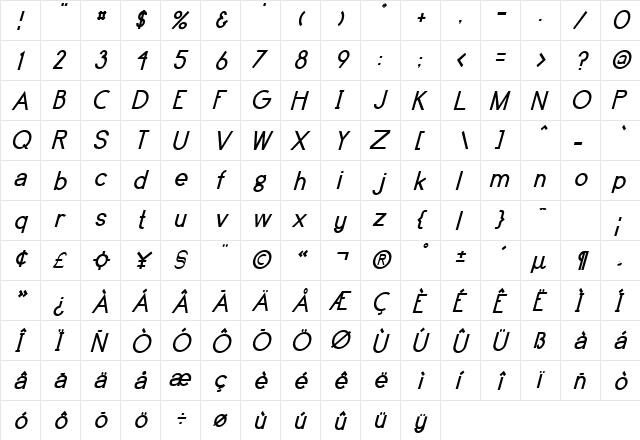
Brassfield Italic
Design Context for Brassfield Typeface
Brassfield takes a measured approach to typography — its balanced proportions and neutral character make it a reliable workhorse for both digital and print work. The dynamic lean of this cut emphasises speed and emphasis in any layout.
Pro Tip: Try Brassfield for annotation and caption copy alongside an upright companion — the contrast in angle creates a dynamic but ordered typographic system.